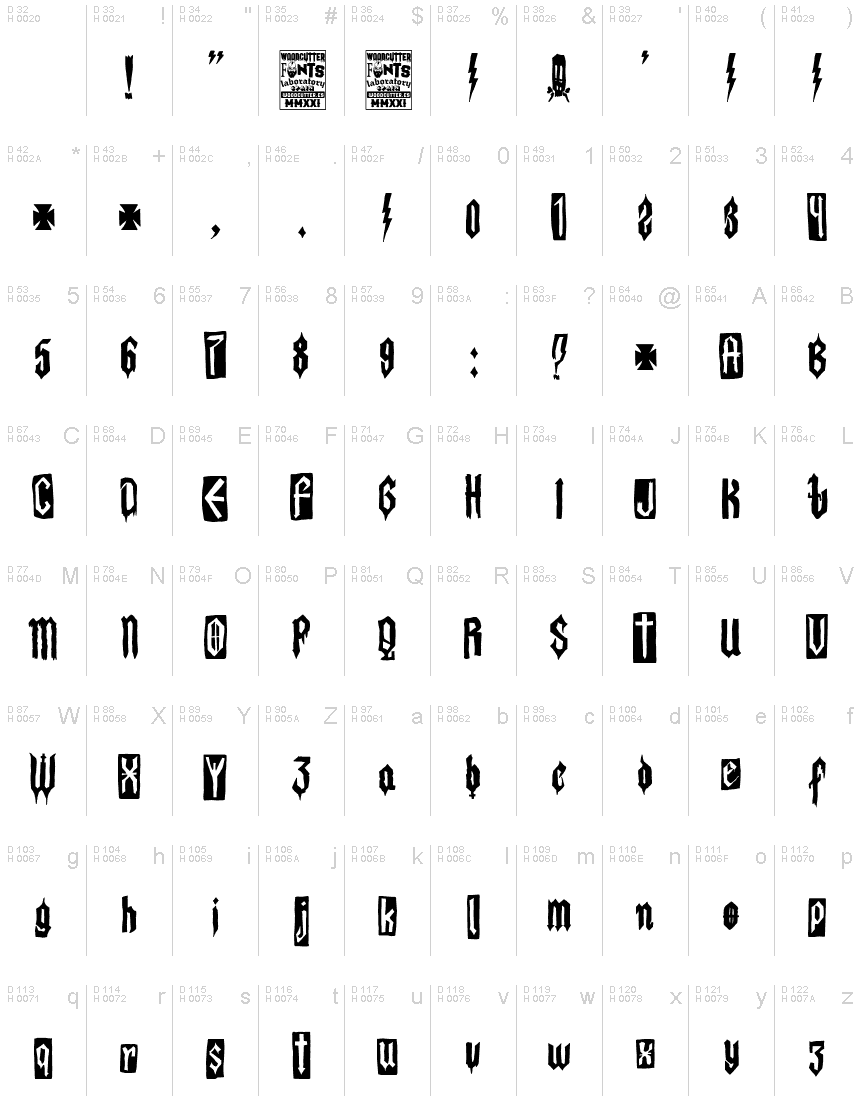
The Lord Of Punk
The Lord Of Punk, a gothic distorted typeface by Woodcutter, is perfect for projects that require a bold and edgy look. Its semi-bold weight and condensed width make it ideal for headlines, posters, and other design elements where emphasis is key. This font's unique style can add a touch of rebellion to any project, whether it's a music festival flyer or an album cover. The Lord Of Punk will definitely make your message stand out from the crowd. So if you're looking for a versatile typeface that screams attitude and personality, give The Lord Of Punk a try!